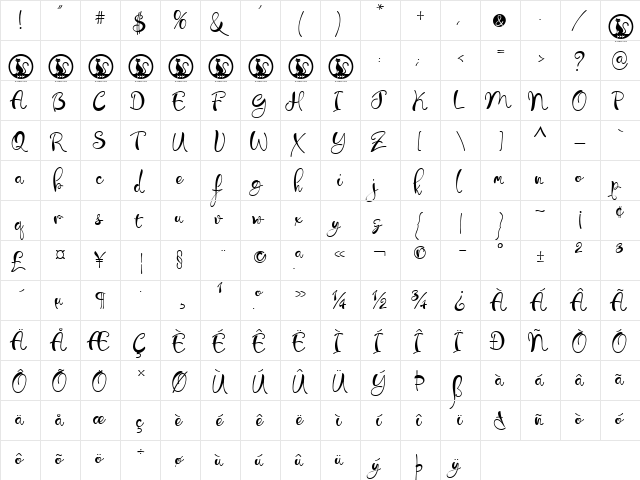
Libertinas-co. ffp
| Foundry | deFharo |
| Designer | Fernando Haro |
Design Context for Libertinas-co. Typeface
Libertinas-co. is a composed and adaptable typeface that performs quietly and consistently across a wide range of design contexts.
Pro Tip: Use Libertinas-co. in both headline and body roles to test its range before committing to a single application.